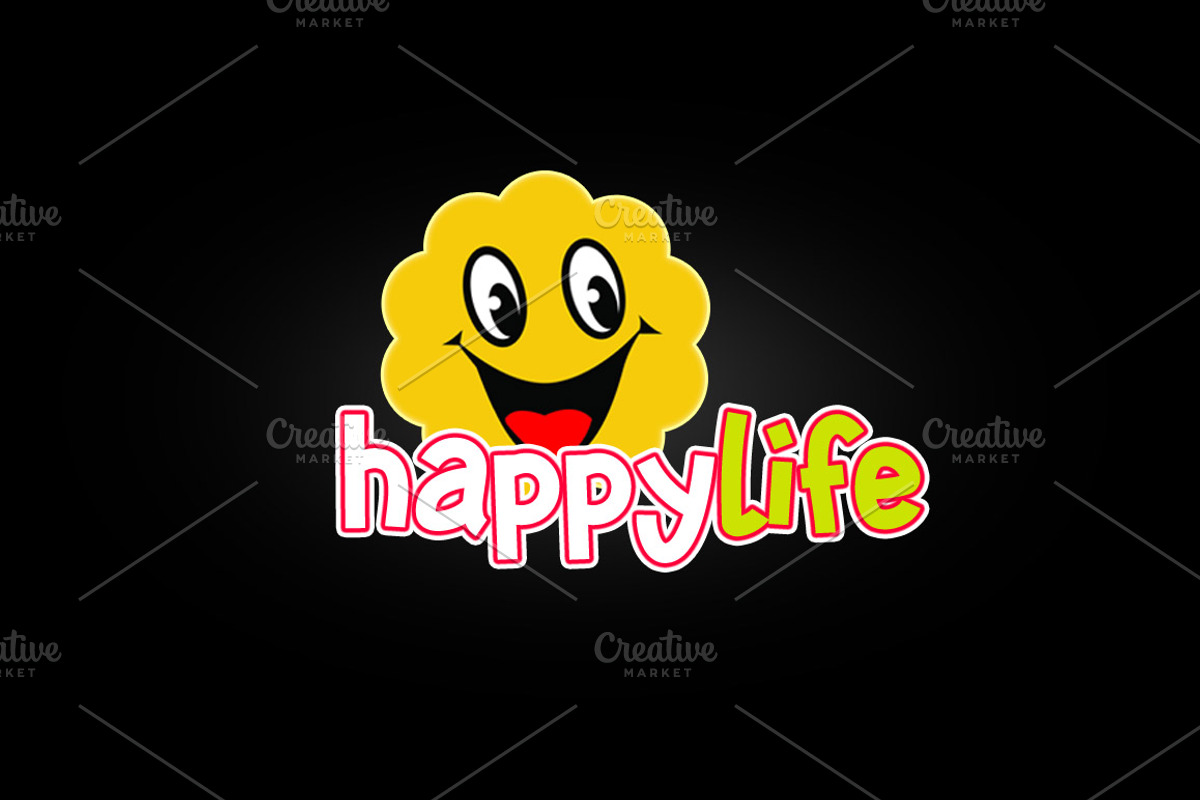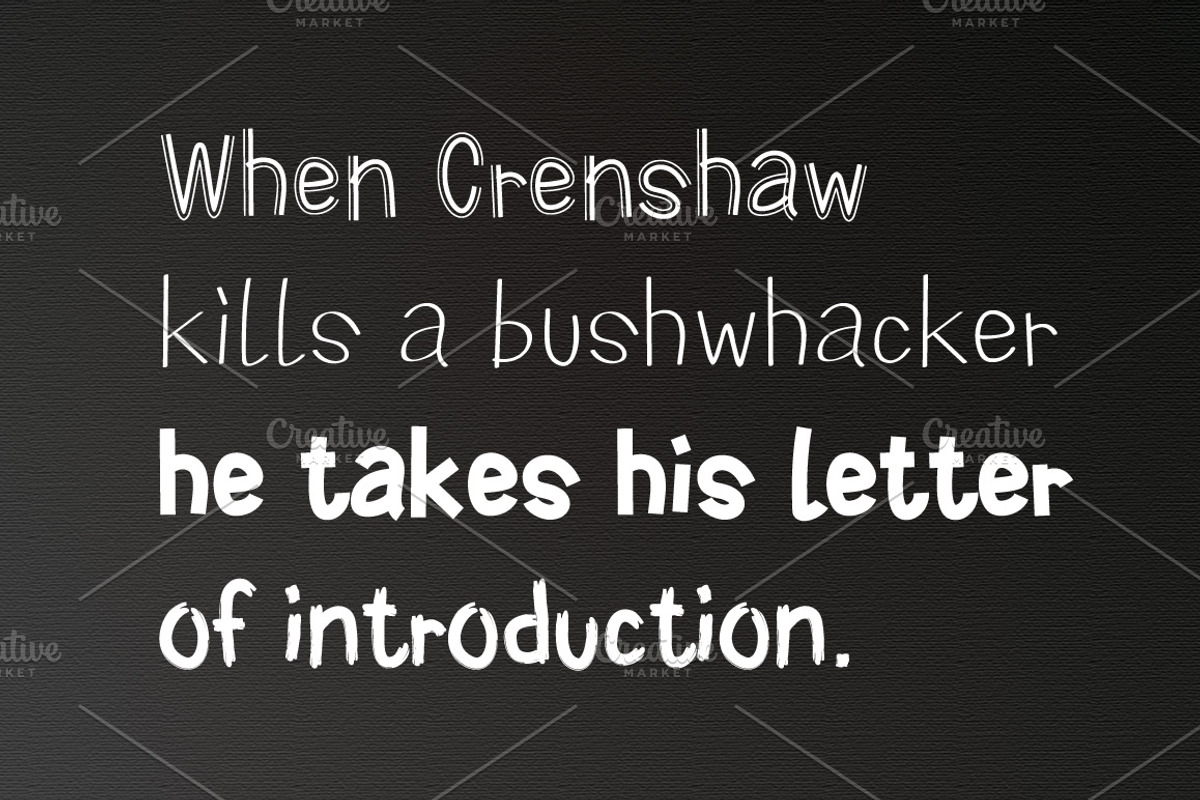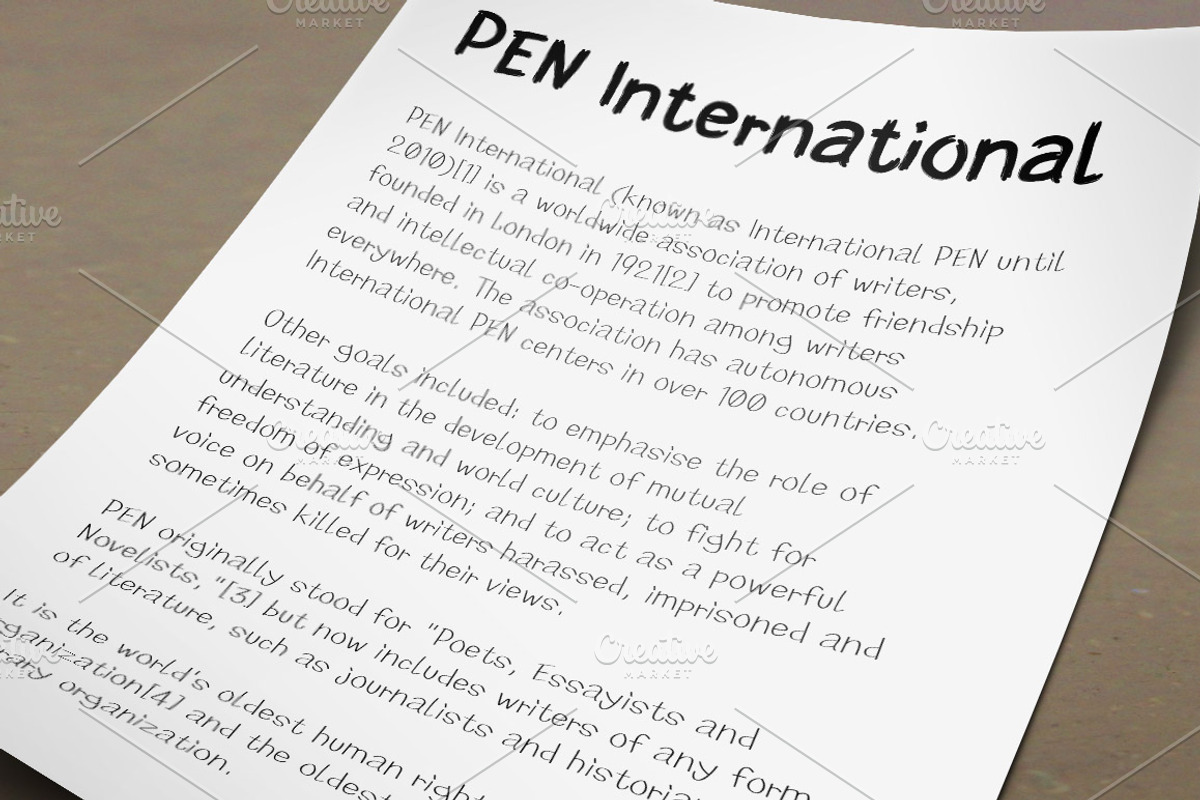
SHUIMU 4 Styles TrueType Font
SHUIMU 4 Styles TrueType Font by alphadesign is a font selected for branding, posters, packaging, typography.
- SHUIMU are a set freehand style fonts , it included Brush, Doubleline, Pen, Strong 4 kinds of style, Be used for POP, advertising, handwriti
- SHUIMU Brush
- SHUIMU Doubleline
- SHUIMU Pen
- SHUIMU Strong
SHUIMU 4 Styles TrueType Font by alphadesign fits naturally into Branding, posters, packaging, typography.